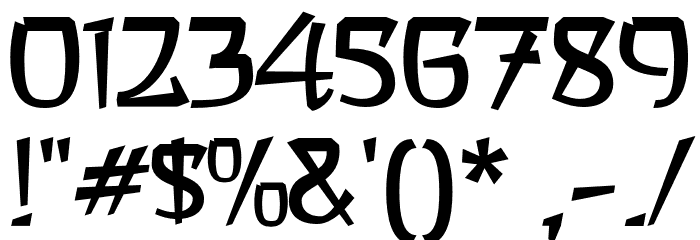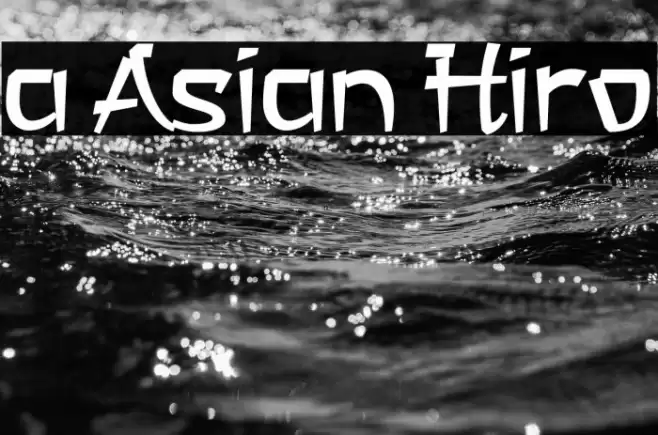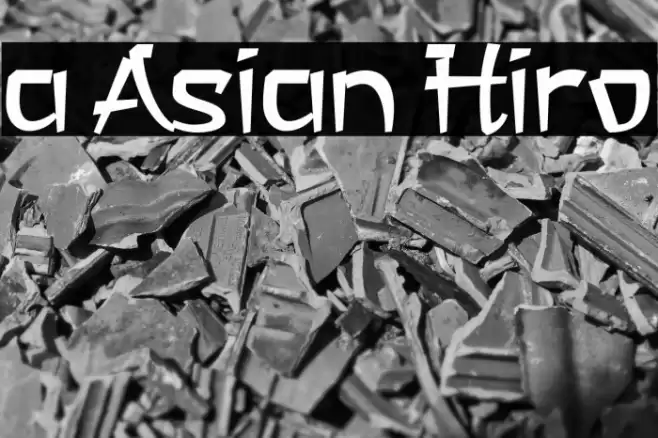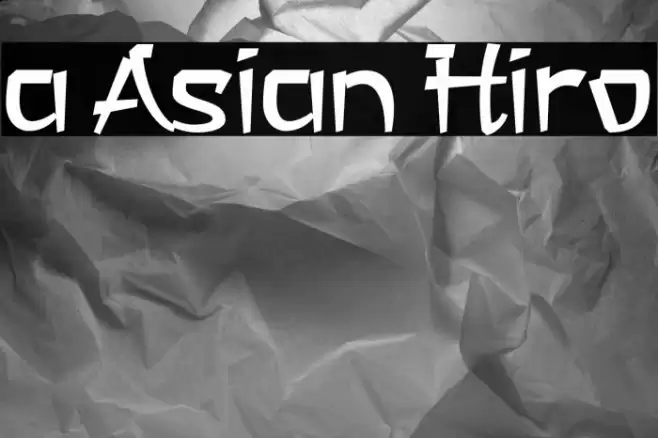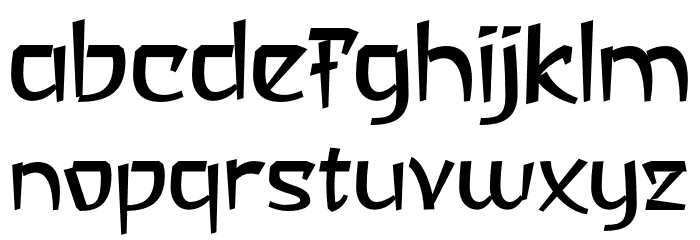
a Asian Hiro Font
a Asian Hiro Description
This font features a bold and dynamic style with sharp, angular edges that give it a distinctly modern and edgy appearance. The uppercase letters are characterized by their strong geometric shapes, while the lowercase letters maintain a consistent flow with slightly rounded edges. The numerals are bold and easily readable, matching the overall aesthetic of the alphabet. Special characters are designed to complement the font's unique style, making it suitable for a variety of creative applications. The font's design is reminiscent of Asian calligraphy, adding an exotic flair to its appearance.
| Proposed Projects | Ideal for use in branding, posters, and graphic design projects that require a bold and distinctive look. |